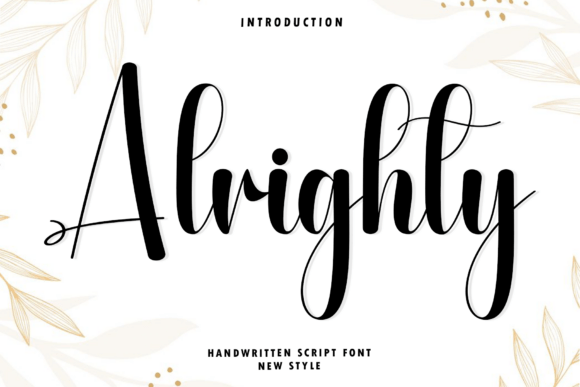
The Alrighty Font: Elevating Your Designs with Elegance
I still remember the design project that led me to discover the Alrighty font. I was working on a luxury wedding stationery set, and my client was adamant about finding the perfect script font that exuded sophistication and elegance. After hours of scouring through font libraries, I stumbled upon Alrighty, and it instantly became the star of the show. Its fluid strokes and modern vibe perfectly captured the essence of the couple’s special day.
An Honest Review of Alrighty Font
What I Love About Alrighty ✨
• ✅ Elegant and fluid handwritten script that screams luxury
• ✅ Perfect for high-end designs, such as wedding stationery, event branding, and editorial signatures
• ✅ Sophisticated and modern vibe that elevates any design
• ⚠️ Limited availability of stylistic alternates, which might limit its versatility
• ⚠️ Some users might find the font a tad too elegant for casual designs
The Story Behind Alrighty Font
Alrighty was designed by a team of typographers who aimed to create a modern, sophisticated script font that captures the essence of luxury and elegance. Inspired by classic calligraphy and modern digital design, Alrighty is the perfect blend of traditional and contemporary styles.
What is Alrighty font best used for? Alrighty font is perfect for luxury wedding stationery, intimate event branding, high-end editorial signatures, and sophisticated lifestyle photography overlays.
Is Alrighty font suitable for body text? While Alrighty is highly legible, it’s recommended to use it for headings, titles, and captions rather than body text.
Does Alrighty font support OpenType features? Yes, Alrighty font supports OpenType features, including ligatures, stylistic alternates, and glyphs.